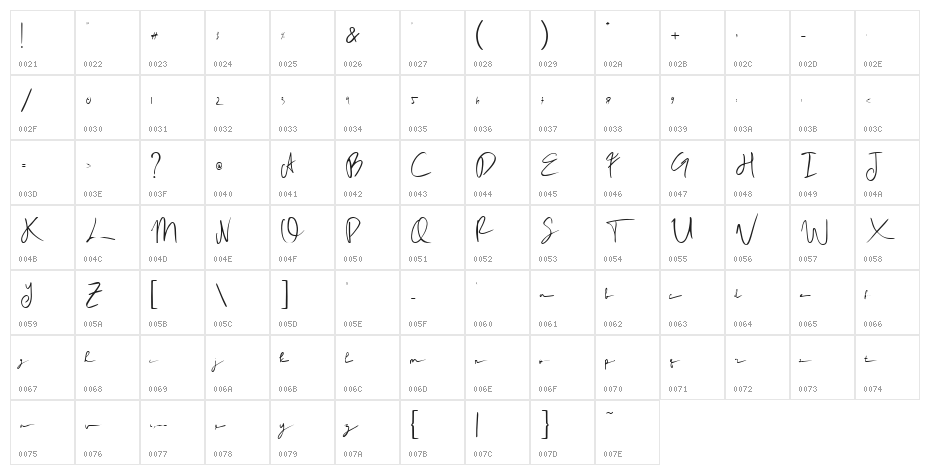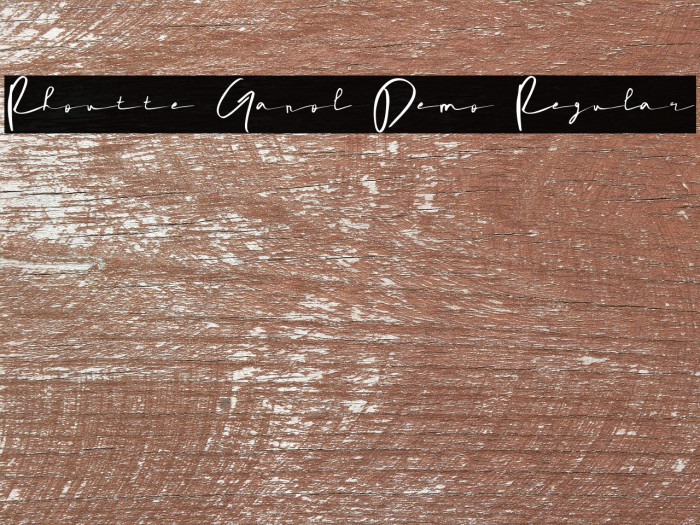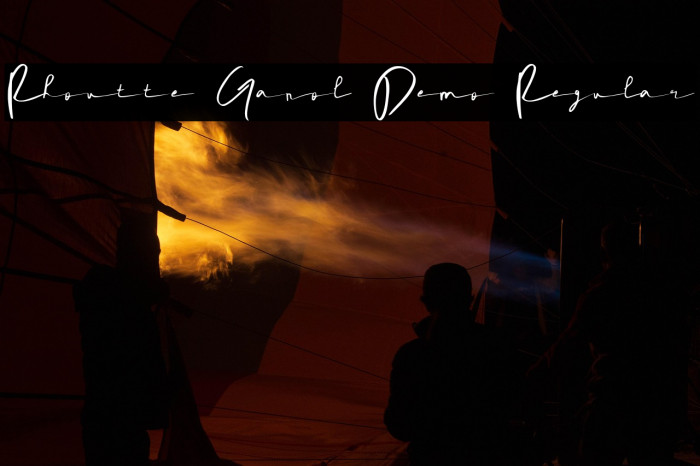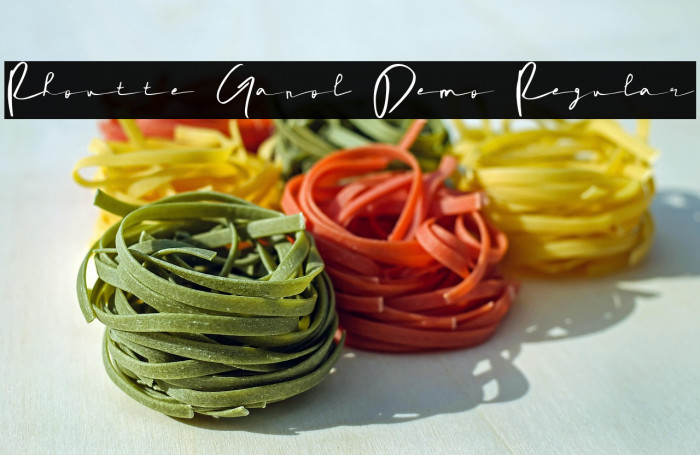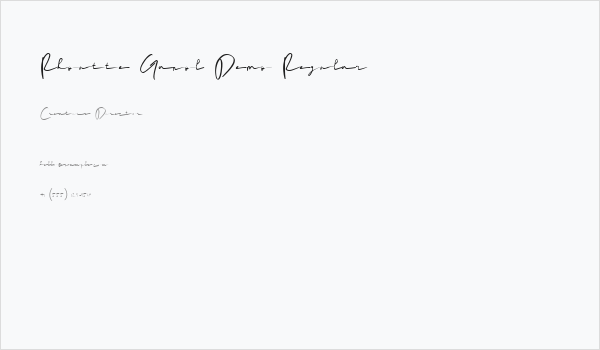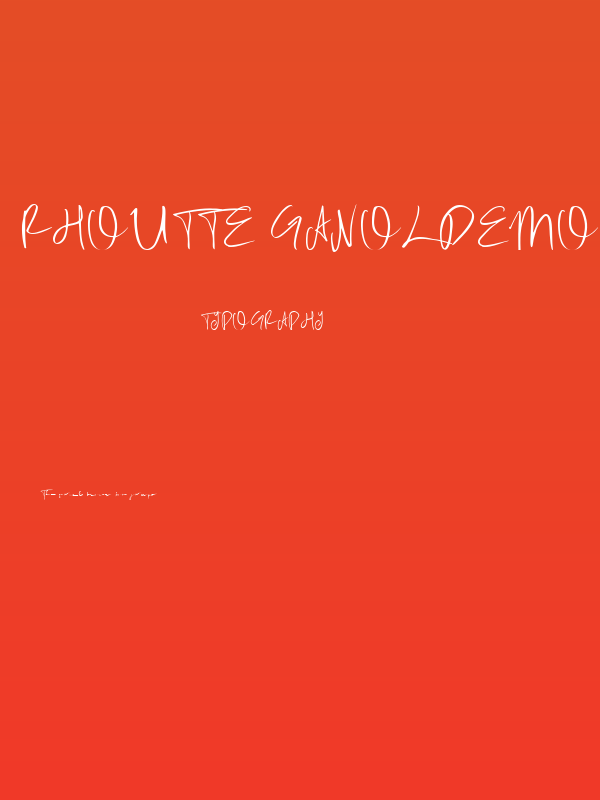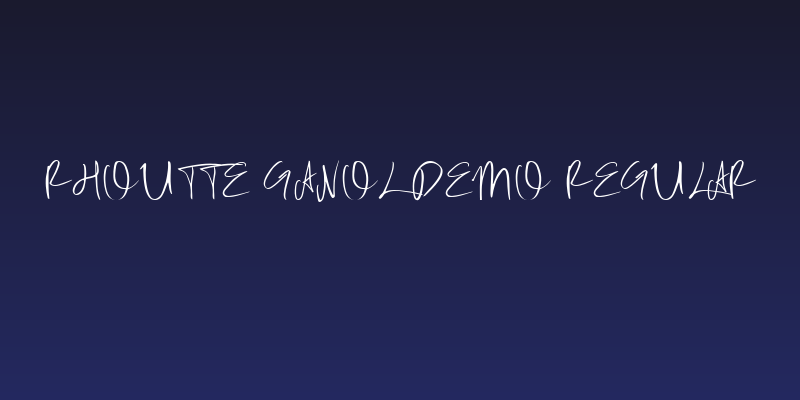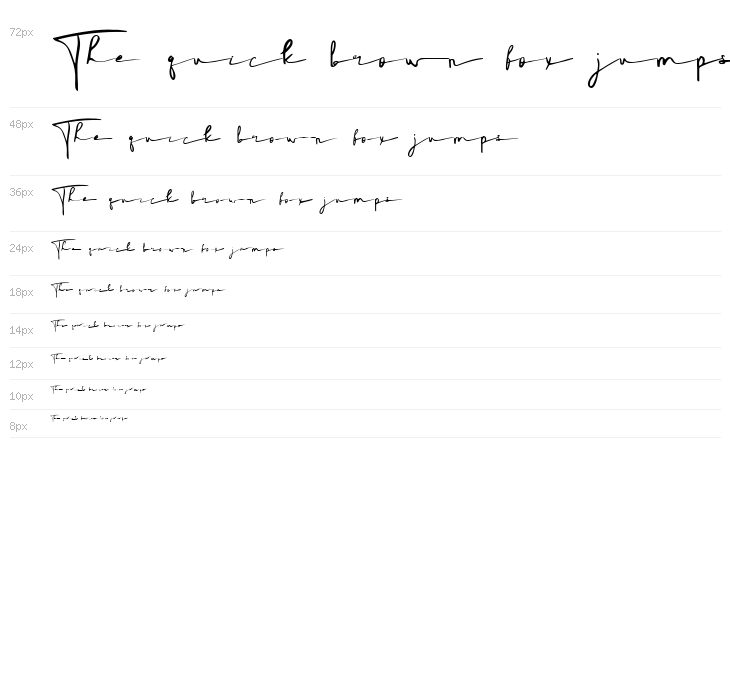
Rhoutte Ganol Demo Regular Font
Rhoutte Ganol Demo Regular Description
A flowing, handwritten script font with a casual and artistic style, featuring varying stroke widths and a playful, informal appearance.
| Use Case | Logos, Headlines |
| Proposed Projects | Greeting cards, invitations, personal branding. |